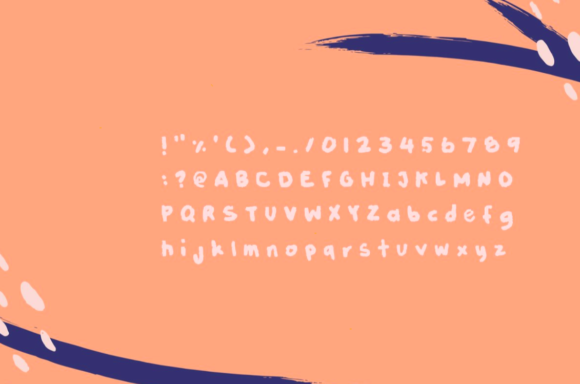
Brush It on Font
About Brush It on Font
Brush It On is a fun handwritten font created by using a brush pen. Its casual charm makes it appear wonderfully down-to-earth, readable and, ultimately, incredibly versatile. Brush It On will look outstanding in any context, whether it’s being used on busy backgrounds or as a standalone headline!